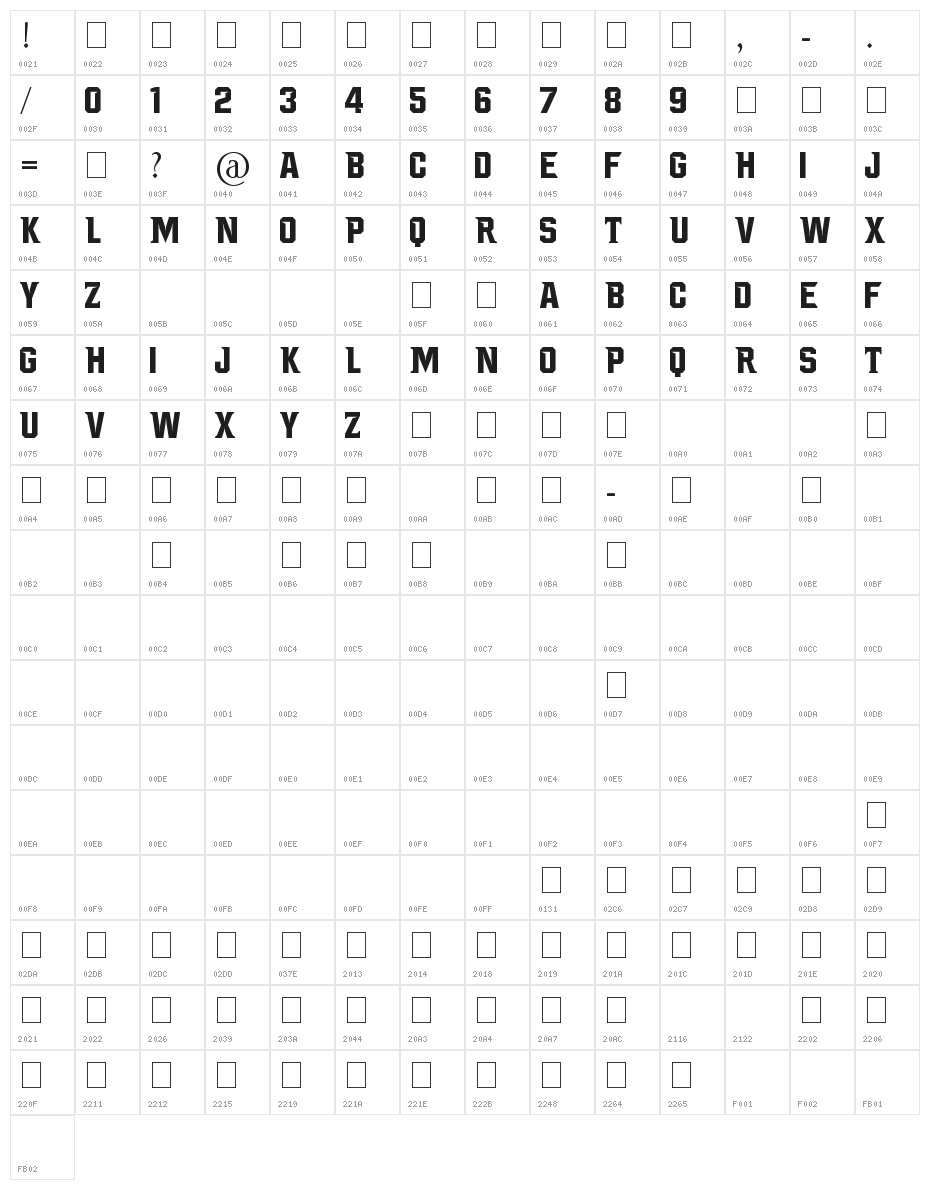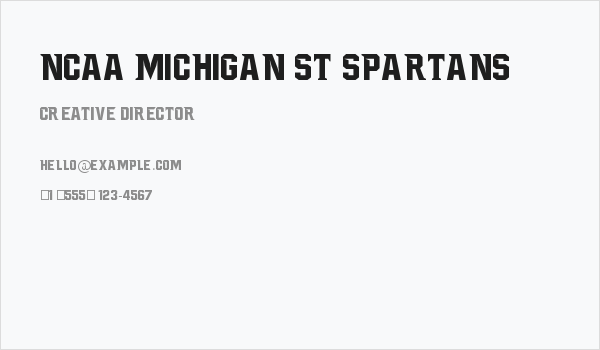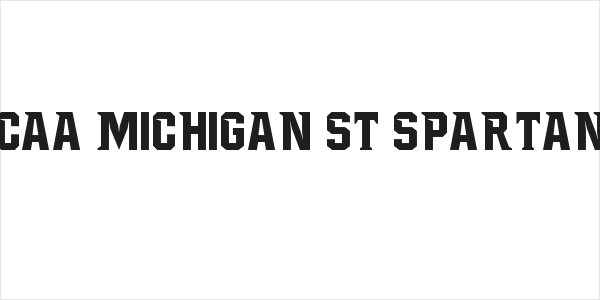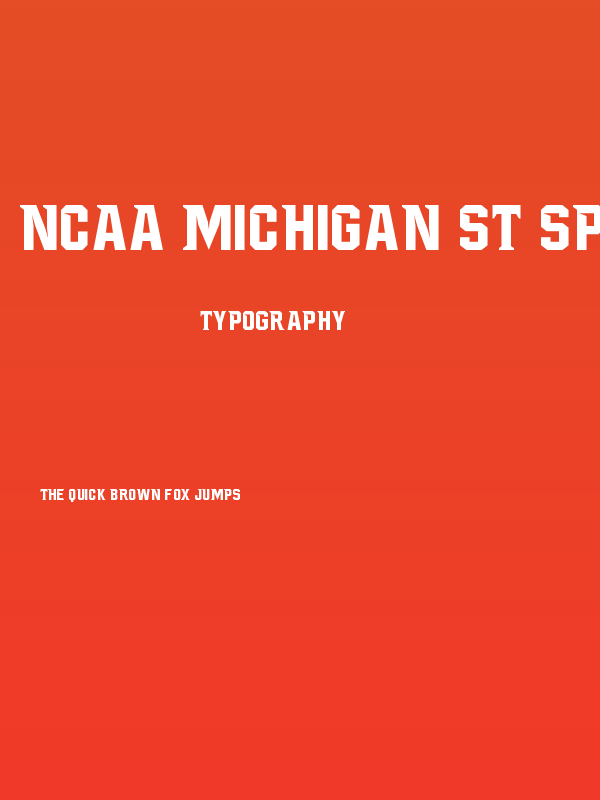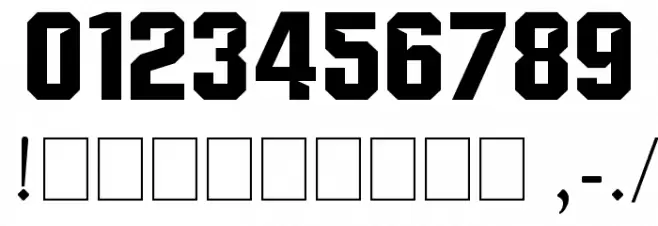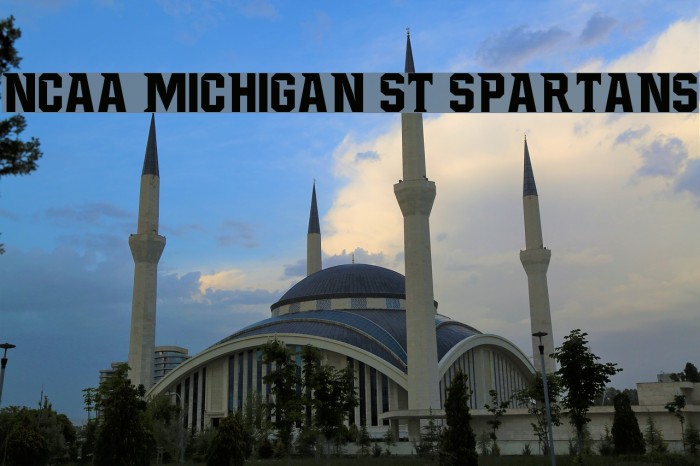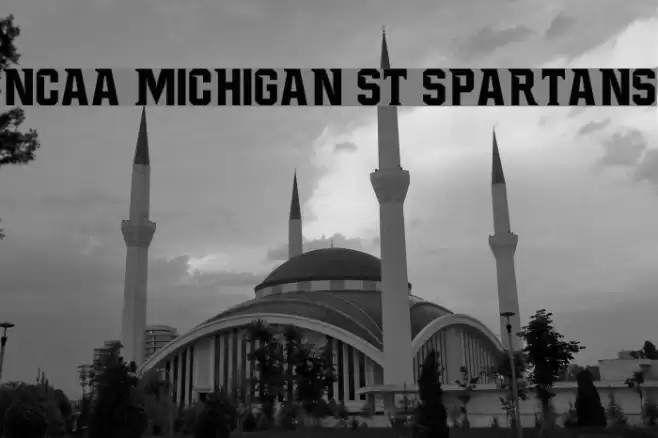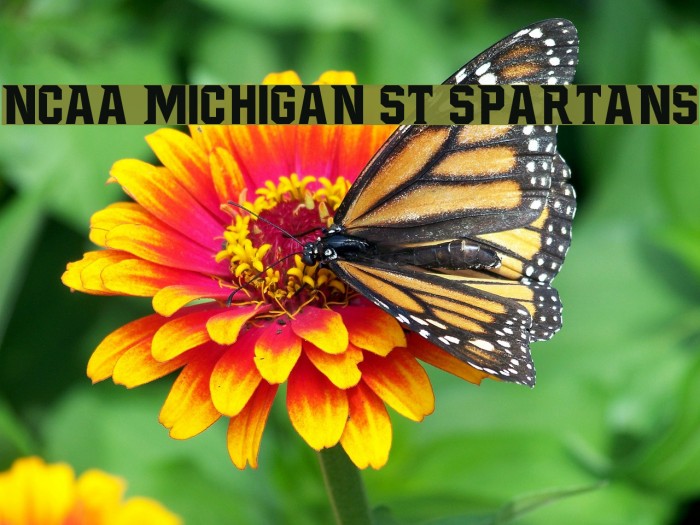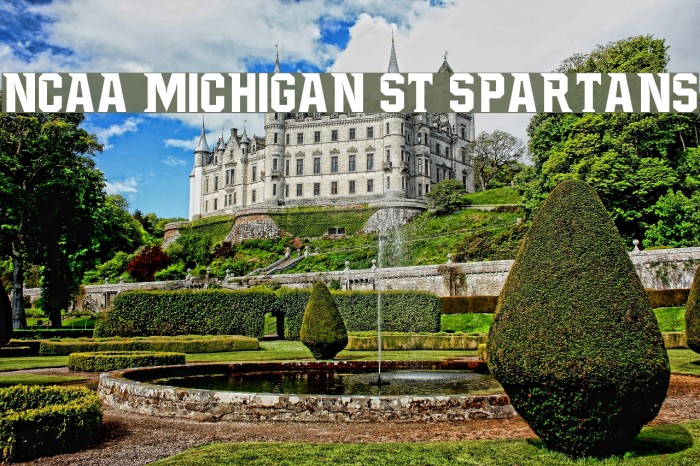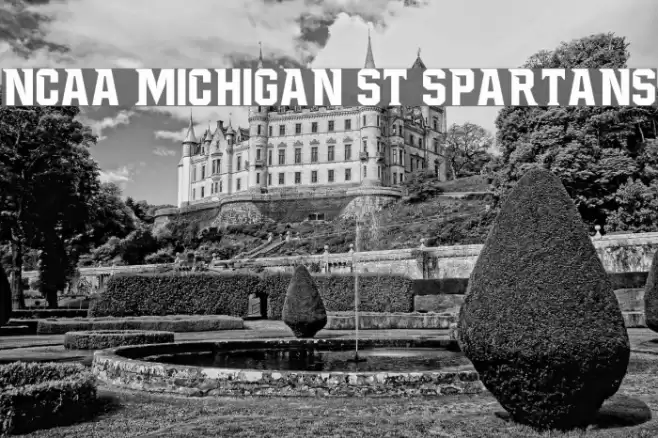
NCAA Michigan St Spartans Font
NCAA Michigan St Spartans Description
This font features a bold, athletic style with strong geometric shapes and sharp angles, reminiscent of traditional sports lettering. The uppercase letters are prominent and commanding, making them ideal for creating impactful headlines or logos. The numerals are equally bold, maintaining the same angular design, which ensures consistency across different uses. The font's design is straightforward yet powerful, with a focus on clarity and strength, making it suitable for sports-related projects or branding that requires a robust and energetic appearance.